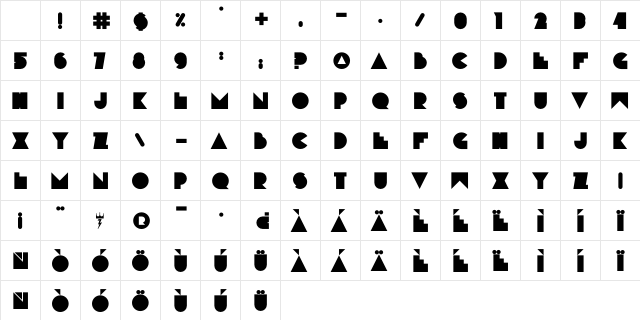
Complete RNS Bobo Dylan glyph index. Displaying only characters natively supported by RNS Bobo Dylan font.
RNS is a composed and adaptable typeface that performs quietly and consistently across a wide range of design contexts.